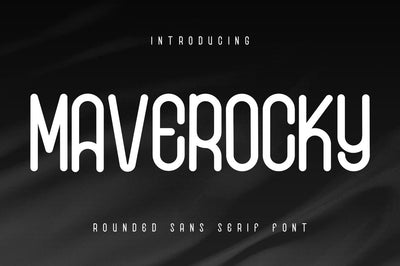
Maverocky - Techno Sans Font
Maverocky is a unique display font. It will give all your designs a bold and modern style.
This font is suitable to use as a logotype, product designs, label, watermark, social media posts, apparel, invitation, signboard, sports club, motor/car, special events, or anything that need handwriting taste.